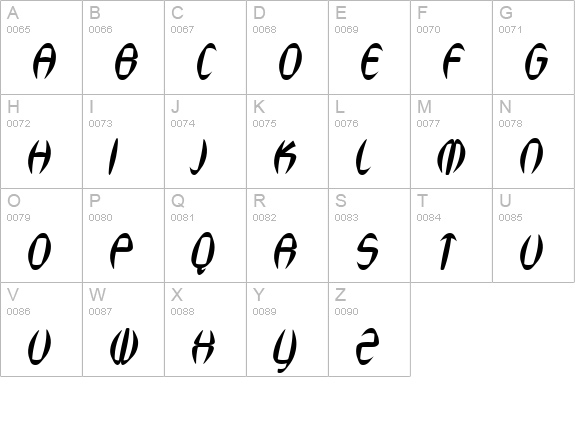
SF Synthonic Pop Oblique Font Details
SF Synthonic Pop Oblique is a distinctive, italic variant in the SF typeface family \xE2\x80\x94 well suited to design and typography projects.
SF Synthonic Pop Oblique is a mesmerizing and futuristic font that effortlessly combines elements of synthwave, pop culture, and science fiction. This font is a visual manifestation of the vibrant energy and pulsating rhythm of the urban landscape, capturing the essence of a neon-lit cityscape at sunset. With its sleek and oblique letterforms, SF Synthonic Pop Oblique exudes a sense of dynamism and forward motion. Each character is meticulously crafted, featuring smooth curves and sharp angles that create a perfect balance between modernity and retro aesthetics. The unique design of this font makes it perfect for various creative projects, including posters, album covers, logos, and digital artwork. One of the most remarkable aspects of SF Synthonic Pop Oblique is that it is freely available to download at FontsMarket.com. This means that you can easily incorporate this stunning font into your designs without any financial constraints. Whether you are a professional designer or an aspiring artist, this free font allows you to explore your creativity and experiment with different typographic styles. The versatility of SF Synthonic Pop Oblique knows no bounds. Its futuristic and edgy appearance adds a touch of excitement to any project, while its clarity and legibility ensure that your message is effectively conveyed to your audience. Whether you are aiming for a retro-futuristic vibe or a contemporary aesthetic, this font effortlessly adapts to your creative vision. SF Synthonic Pop Oblique is a true testament to the power of typography to evoke emotions and capture the essence of a moment. Its bold and expressive design sets it apart from conventional fonts, making it a standout choice for those who dare to be different. Download SF Synthonic Pop Oblique for free at FontsMarket.com and let your imagination run wild as you explore the endless possibilities this font has to offer.